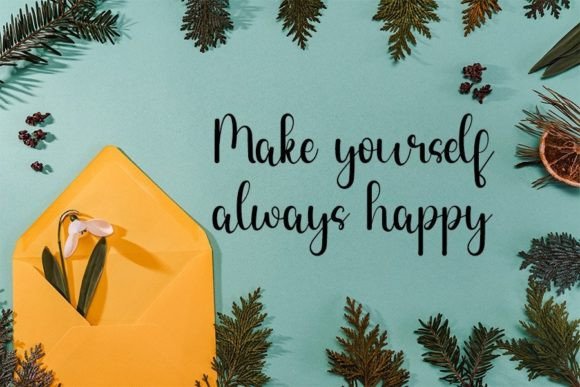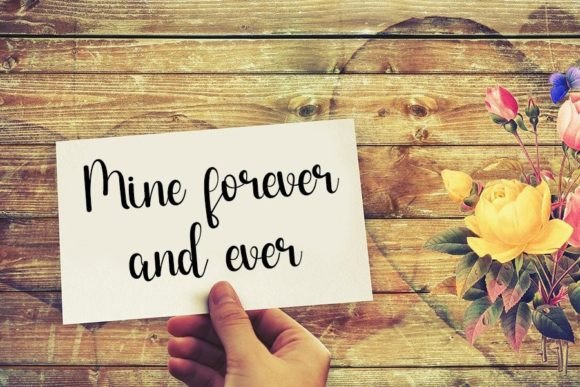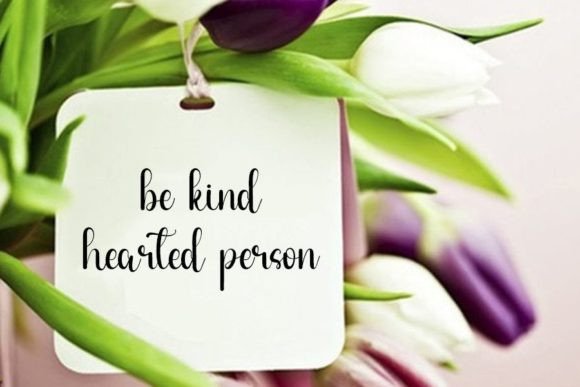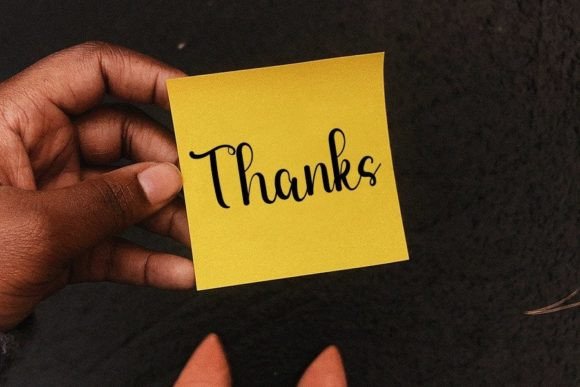
Rustic Wood Font
About Rustic Wood Font
Rustic Wood is a charming and elegant handwritten font, known for its neat and beautiful design that adds a touch of sophistication to your favorite projects. With its distinct and timeless style, Rustic Wood is crafted to enhance the visual appeal of your creations and provide a warm and welcoming aesthetic.
The neat and beautiful characteristics of Rustic Wood are evident in its carefully crafted letterforms. The font exudes a sense of order and refinement, making it suitable for a variety of design applications where a polished and elegant appearance is desired.
The elegant touch of Rustic Wood adds a layer of sophistication and a touch of rustic charm to your designs. Whether you’re working on branding projects, product packaging, invitations, or any other creative endeavor, Rustic Wood ensures that your designs radiate a distinct and classic style.
Fall in love with the distinctive charm of Rustic Wood, and let it be the font that elevates the visual impact of your projects. From logos to spectacular designs, Rustic Wood’s neat and beautiful handwritten style provides a versatile and elegant foundation for a range of creative applications. Incorporate Rustic Wood into your design toolkit and experience how it brings a touch of timeless sophistication to your favorite projects.